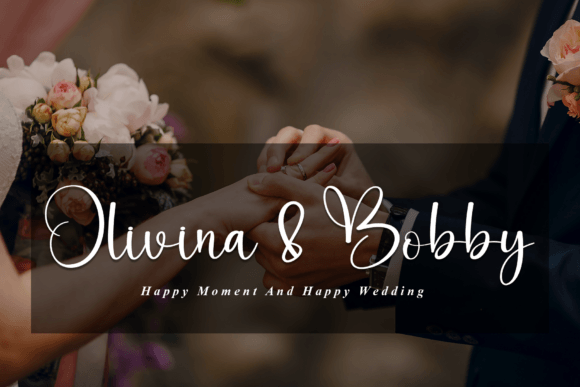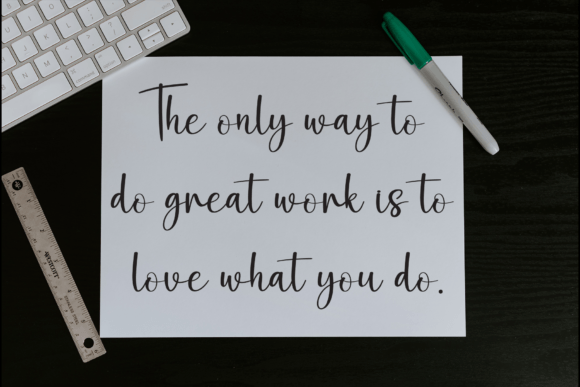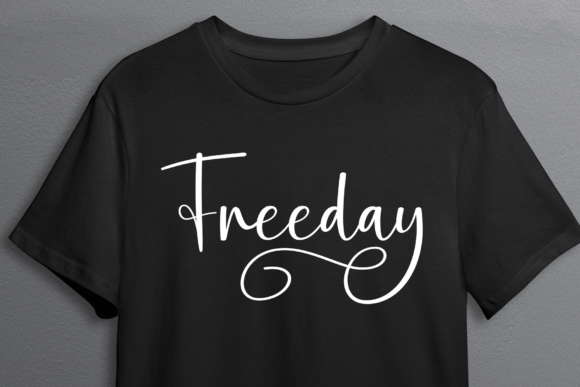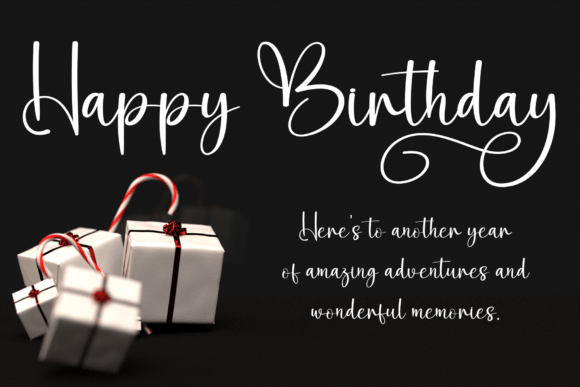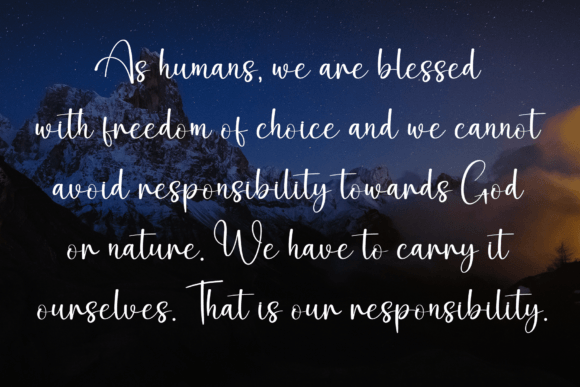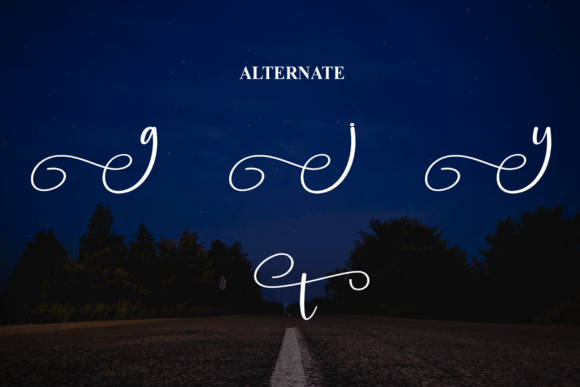
Introduction to Silentnight Font
Silentnight is an exquisite handwritten font, masterfully designed to become a true favorite.
Key Features of Silentnight Font
Why Choose Silentnight Font?
Silentnight Font offers exceptional quality and versatility, making it a valuable addition to your design toolkit. Whether you’re creating for personal projects or commercial use, Silentnight Font delivers professional results.